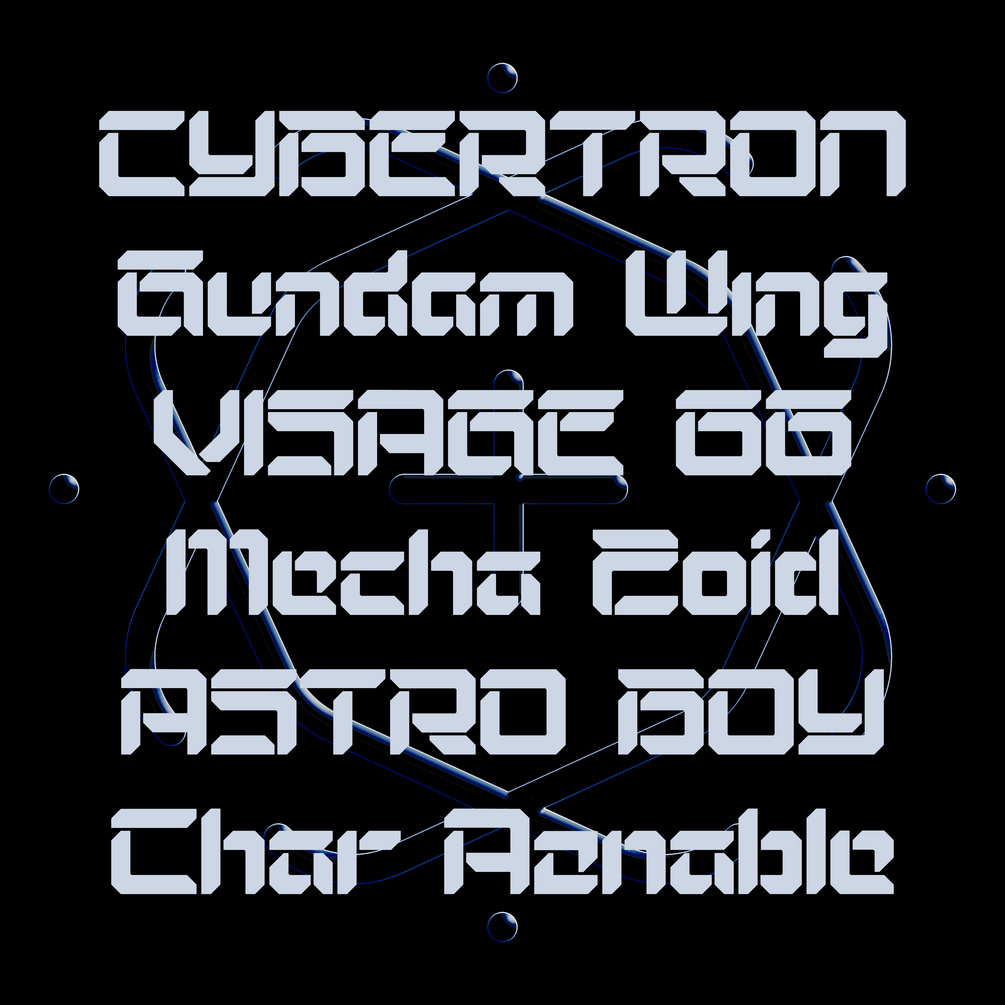
BODGA
BODGA IS FUTURISTIC TYPEFACE THAT PERFECT FOR APPAREL, POSTER, BRAND, WEBSITE AND ANOTHER PROJECT THAT NEED FUTURISTIC IMPRESSION.
BODGA TYPEFACE INCLUDE :
• 26 UPPERCASE
• 26 LOWERCASE
• 13 UPPERCASE ALTERNATES
• 18 LOWERCASE ALTERNATES
• 10 NUMERAL
• 1 NUMERAL ALTERNATES
• PUNCTUATION